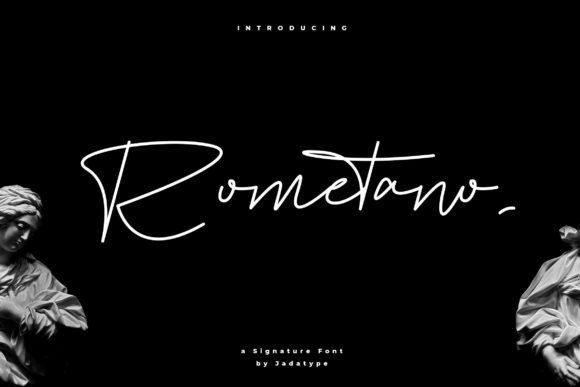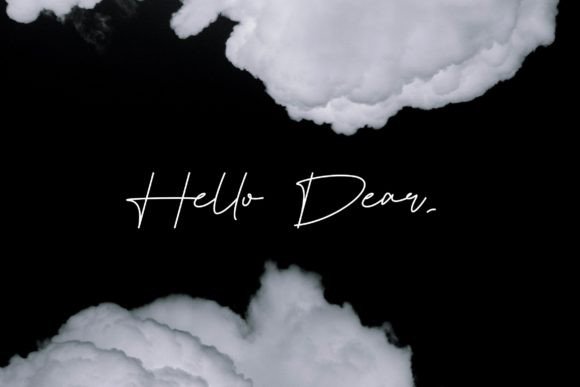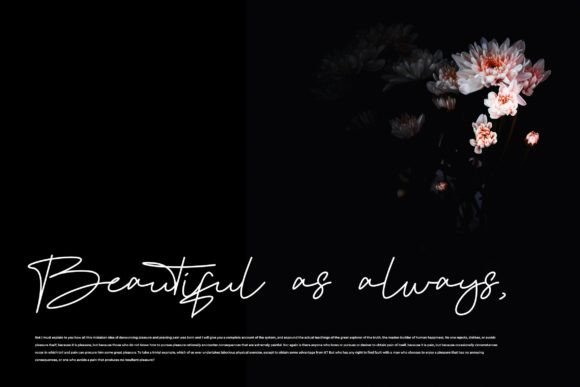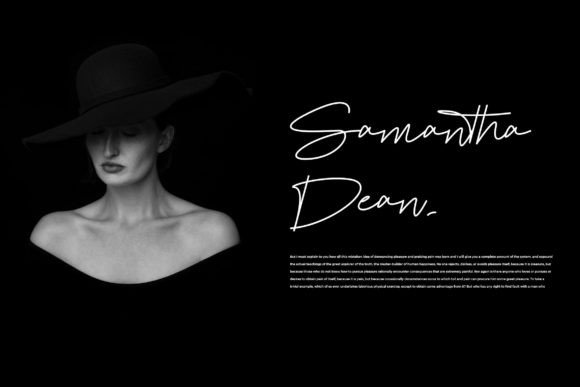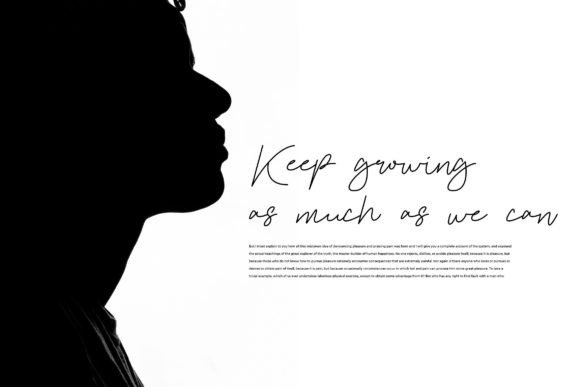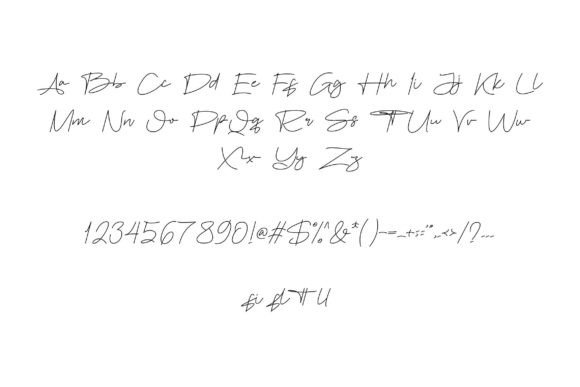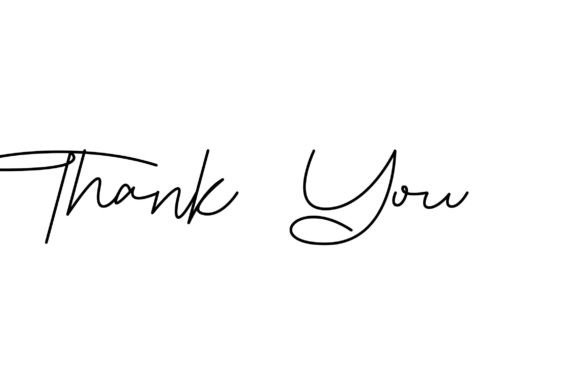
Rometano Font
About Rometano Font
Welcome to the world of sophistication and elegance with Rometano, a signature font that exudes natural lines and a timeless appeal. This splendid typeface is crafted to convey a sense of seriousness, refinement, and elegance, making it a versatile choice for a variety of design applications. Whether you’re working on shirt designs, social media graphics, books, invitation cards, events, crafts, or other creative projects, Rometano is designed to make a lasting impression.
Rometano stands out with its signature style, featuring natural lines that lend a sense of authenticity and class to your text. The font’s design creates an impression of seriousness and elegance, making it suitable for projects that require a touch of sophistication. Its refined appearance adds a timeless quality, allowing it to seamlessly integrate into various design contexts.
One of the notable applications of Rometano is in shirt design. The font’s signature style enhances the visual appeal of apparel, giving it a touch of elegance and exclusivity. Whether you’re creating a brand logo or designing shirts for a special event, Rometano lends a sense of seriousness and refinement to the overall aesthetic.
In the realm of social media and branding, Rometano becomes a powerful tool for conveying a sense of professionalism. Its natural lines contribute to a clean and polished appearance, making it an ideal choice for creating a cohesive and sophisticated visual identity. Books, invitations, and event materials benefit from the font’s elegance, creating a lasting impact on the audience.
The versatility of Rometano extends to crafts and various creative projects. Its signature style adds a touch of class to handmade items, making them stand out with a refined and authentic appeal. The font’s ability to convey seriousness and elegance makes it a valuable asset for designers and businesses looking to make a statement with their visual communication.
Embrace the sophistication of Rometano as more than just a font—it’s a design element that elevates your projects to new levels of elegance and refinement. Whether you’re designing for print or digital media, Rometano is here to add a touch of timeless class to your creations.